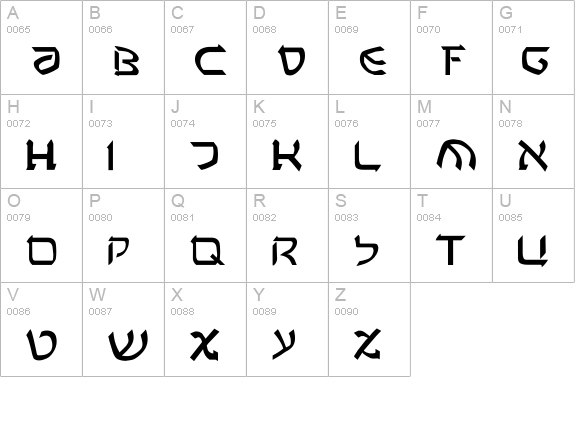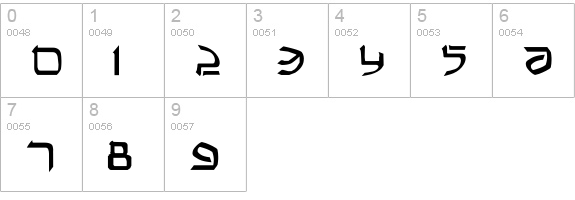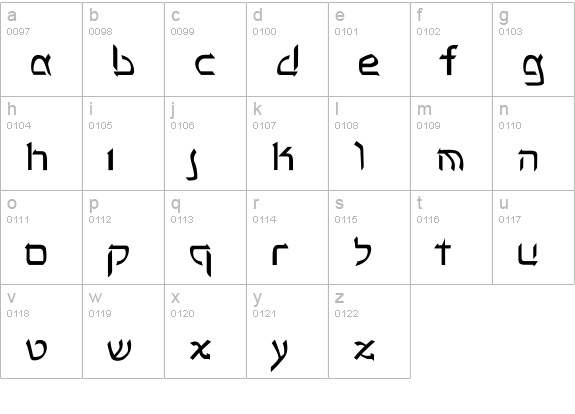
Rashela Font Details
Introducing Rashela, a stunningly elegant font that effortlessly combines sophistication with modernity. With its delicate curves and clean lines, Rashela brings a touch of grace to any design project. Whether it's for a wedding invitation, a logo, or a poster, this font will captivate your audience and leave a lasting impression. What sets Rashela apart is not only its timeless beauty but also its versatility. It is equally at home in both formal and casual contexts, making it a perfect choice for a wide range of applications. Its legibility and readability ensure that your message will be conveyed clearly and effectively. But here's the best part – Rashela is completely free! Yes, you read that right. This exquisite font is freely available to download at FontsMarket.com. We believe that great design should be accessible to all, and that's why we're thrilled to offer Rashela as a gift to the design community. So go ahead and elevate your designs with the elegance of Rashela. Download it now from FontsMarket.com and let your creativity soar. Whether you're a professional designer or a hobbyist, this font will inspire you to create something truly extraordinary. Don't miss out on this opportunity to enhance your projects with this exceptional typeface. Get Rashela today and make your designs shine with its timeless beauty.